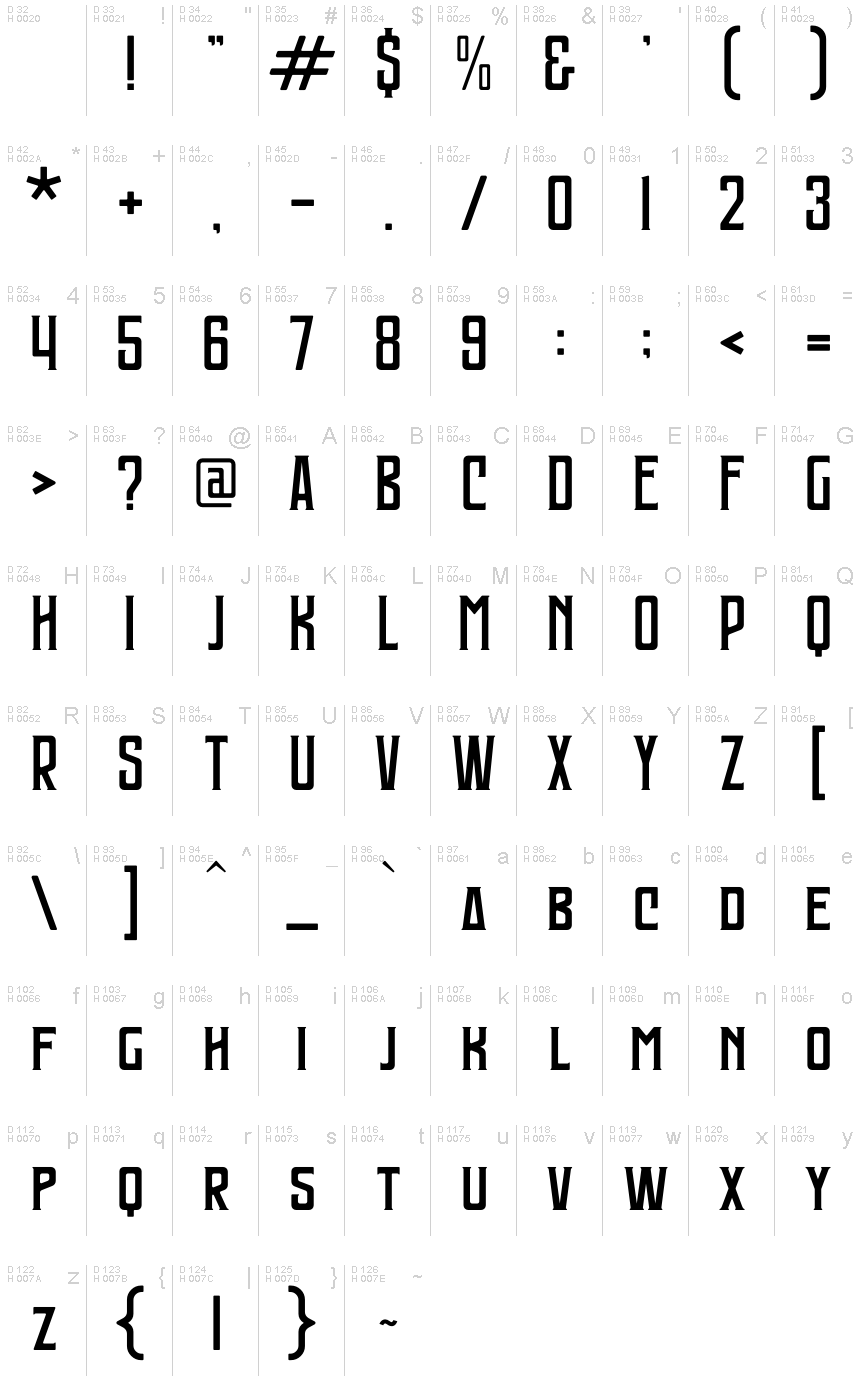
MONGONDOW
Mongondow font, crafted by Storytype Studio, showcases a striking retro style that captures the essence of classic design elements. This display font features a distinctly condensed form, lending itself to bold visual statements and stylish compositions. With its eye-catching appearance, Mongondow is perfect for creating memorable logos, attention-grabbing headlines, and dynamic posters.
Ideal for designers looking to infuse their projects with a nostalgic flair, this free font offers versatility across various creative contexts. Enhance your designs' appeal by downloading the Mongondow font today and exploring its unique blend of vintage aesthetics and modern functionality. Whether you're crafting an engaging advertisement or designing elegant branding materials, Mongondow delivers both character and clarity in every use case.